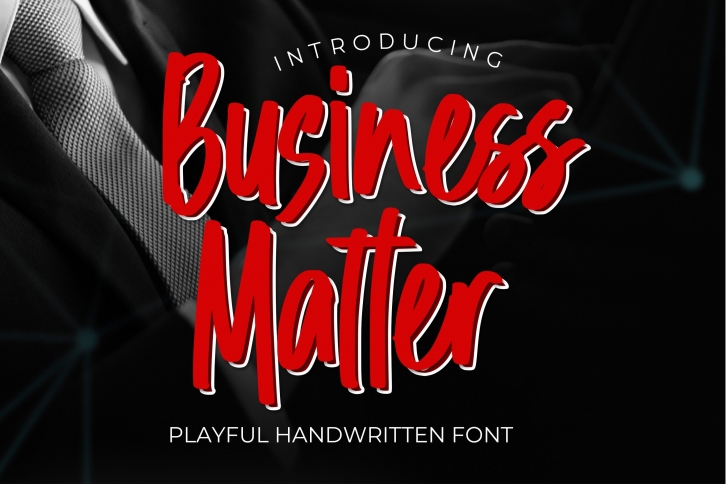
Business Matter is a Playful Handwritten Font that will make your designs look modern, unique and fun.
It’s perfect for labels, quotes, posters, DIY projects, branding, packaging, greeting cards, websites, photography overlays, signs, window art, scrapbooking, tags and so much more!